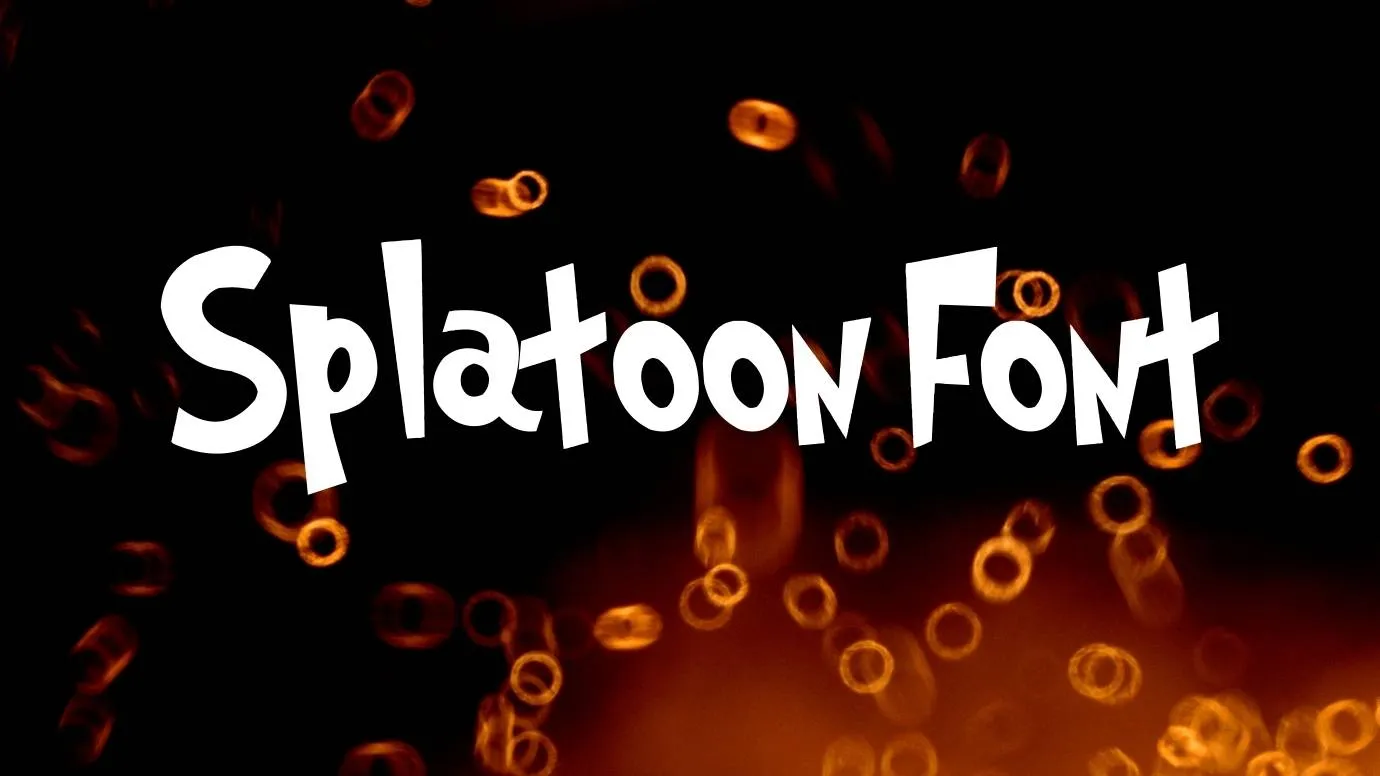
Splatoon Font is developed by Mariko Tachibana in Nintendo (a Japanese Company). It comes with many fantastic characters including punctuations, numerals, lowercase and uppercase characters. For creating quick designs this typeface gives an online text generator tool.
This typeface is useful for various designing projects like blog designs, websites, and template designs and you can also use it for headings and titlings on your websites. You can use Flames Font for its similar font.
Splatoon Font